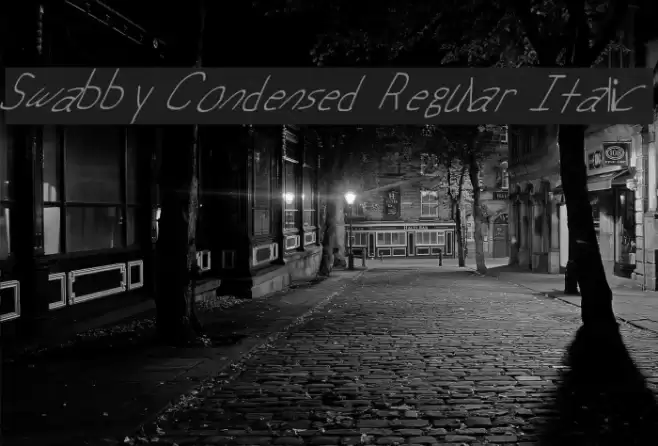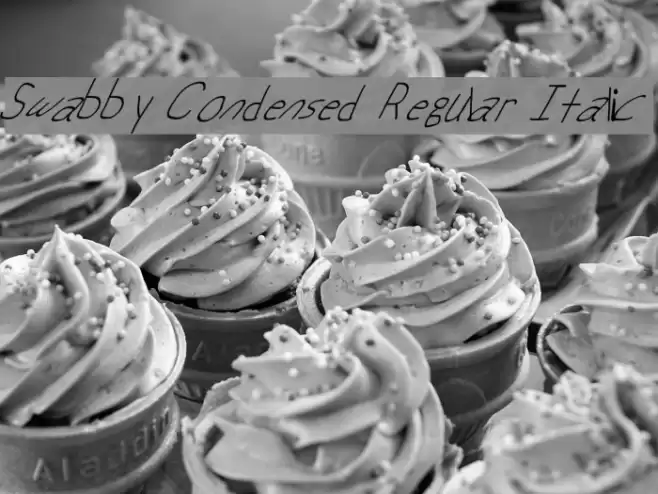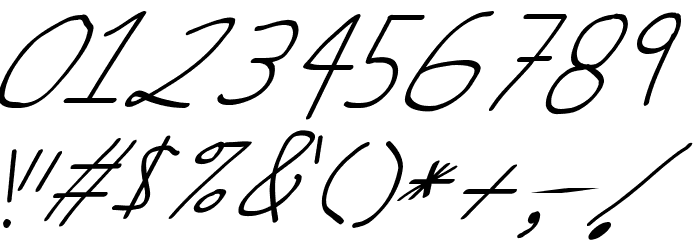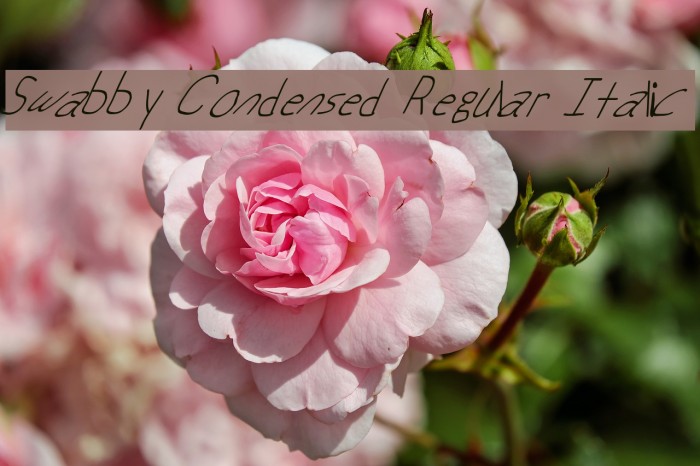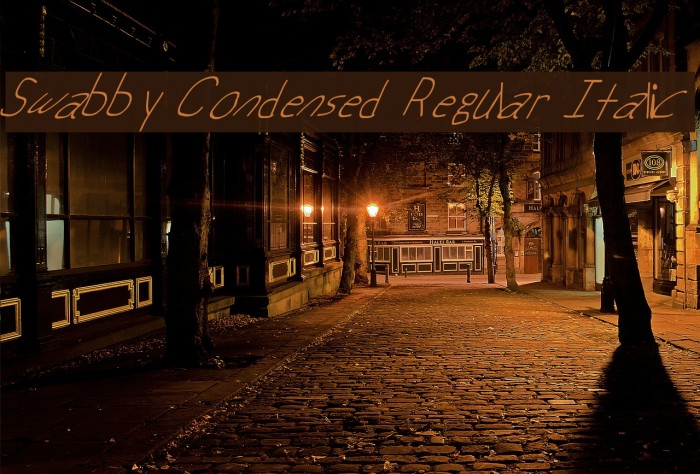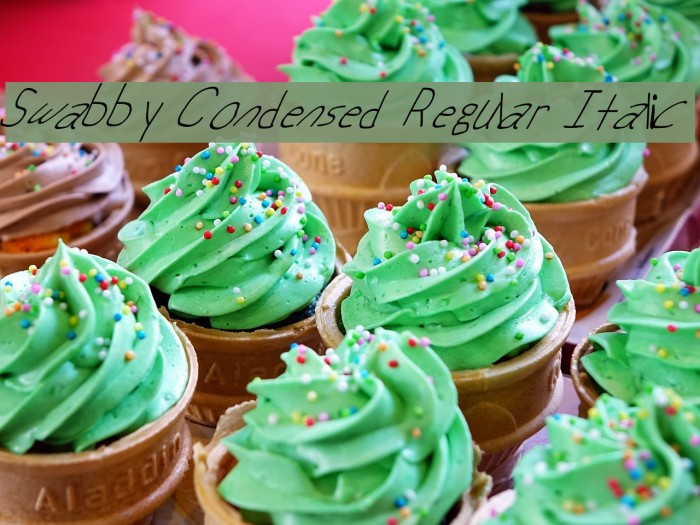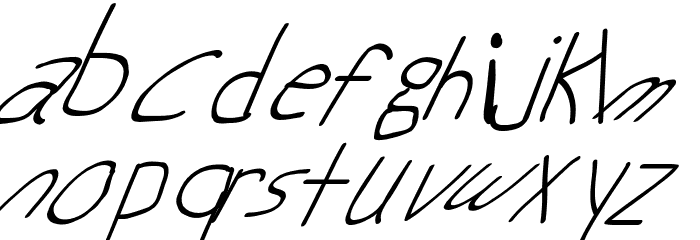
Swabby Condensed Regular Italic Font
Swabby Condensed Regular Italic Description
This font features a handwritten, cursive style with a condensed and italicized form. The characters are elongated and slightly slanted, giving a sense of motion and fluidity. The strokes are consistent in thickness, providing a uniform appearance across all letters and numbers. The uppercase letters are tall and narrow, while the lowercase letters maintain a similar style but with a more relaxed form. The numerals are designed to match the overall aesthetic, with a playful yet elegant touch. Special characters are included, maintaining the same handwritten feel, which adds versatility to the font.
A condensed, italicized handwritten font with a fluid and playful style from Uncategorized fonts.
- Proposed Projects: Ideal for creative projects such as greeting cards, invitations, personal branding, and artistic posters.
- Use Case: Logos, Headlines, Artistic projects